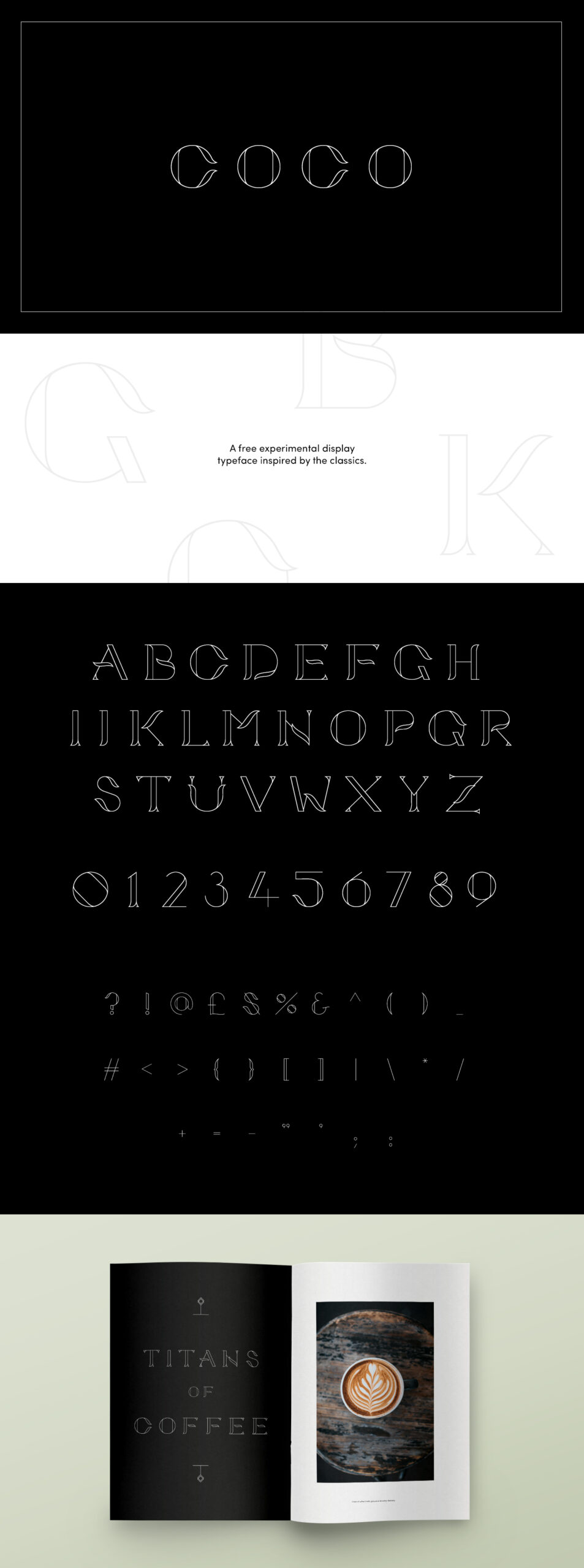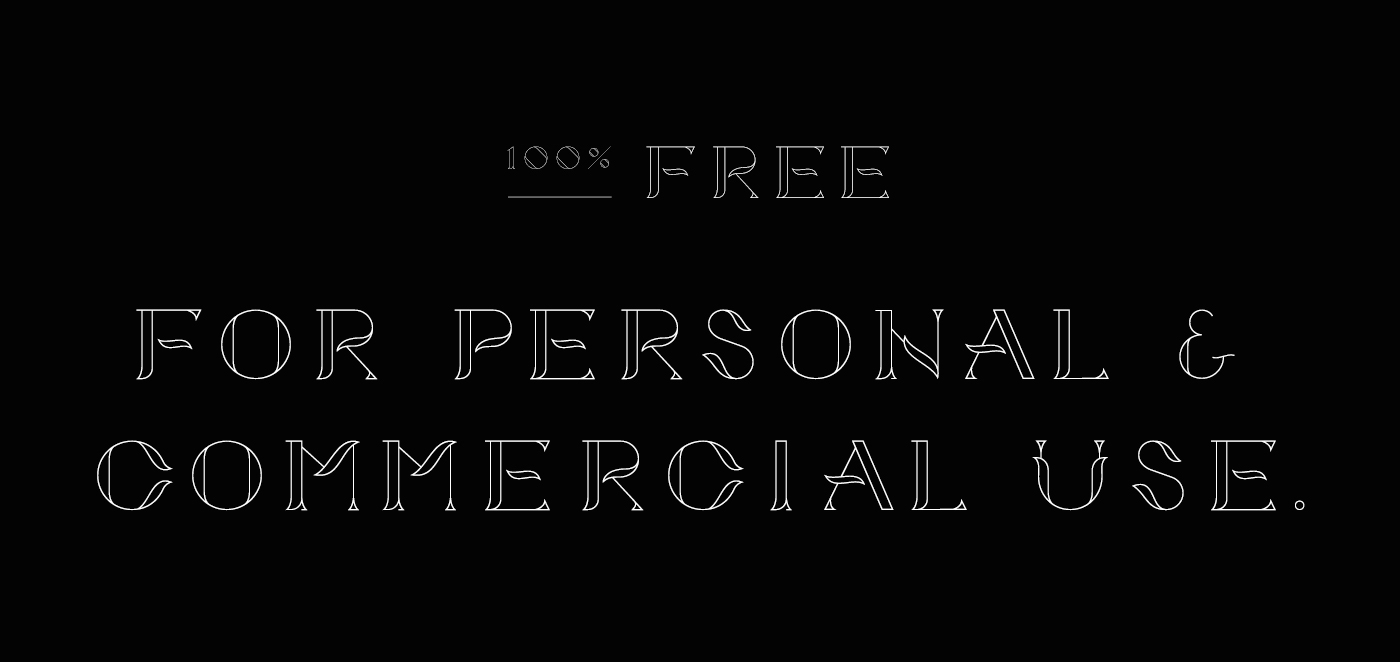
Coco is a slim and elegant font created by Liah Moss. Coco is Liah’s first attempt at creating a typeface inspired by old classic designs with a modern touch. It works beautifully on contemporary digital designs like interactive and product design, editorial and corporate Web design. Free for personal and commercial use!